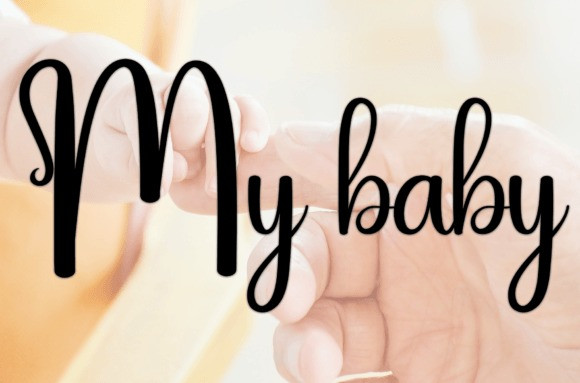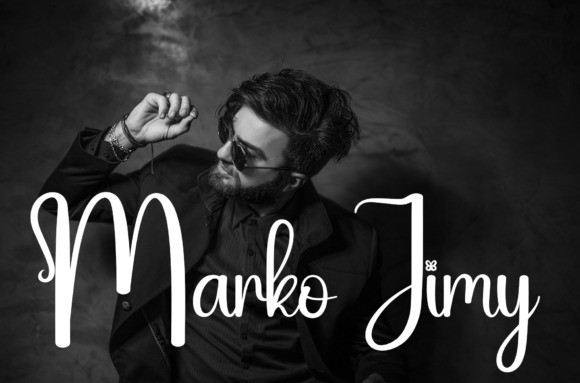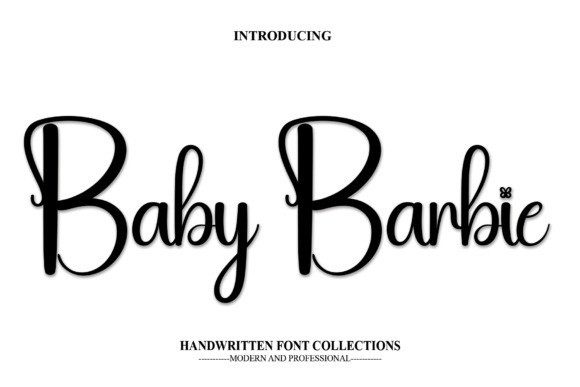
Baby Barbie Font
Baby Barbie Font is a sweet and friendly handwritten font. Creative and cute, this font is ideal for writing wedding invitations, cards, or any other design that might need a fun touch!